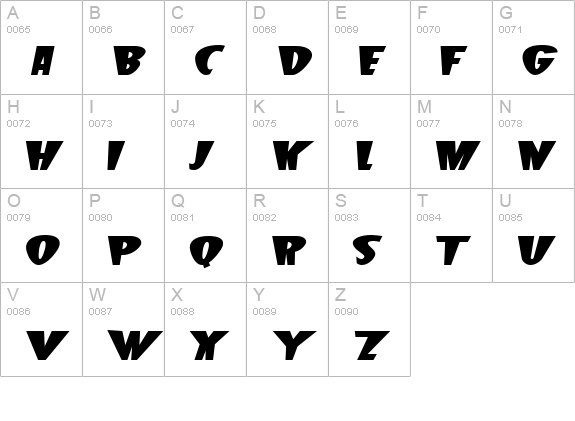
BeetleJ font is a modern and stylish typeface that adds a touch of sophistication to any design project. With its sleek lines and elegant curves, this font is perfect for creating eye-catching headlines, logos, and more. The versatility of BeetleJ font makes it suitable for a wide range of design applications, from branding to editorial design. One of the best things about BeetleJ font is that it is completely free to use. You can easily download this font at FontsMarket.com and start using it in your projects right away. Whether you're a professional designer or just someone looking to add a unique touch to your creations, BeetleJ font is the perfect choice. Don't miss out on this opportunity to enhance your designs with this beautiful and versatile font. Download BeetleJ font today and let your creativity shine!